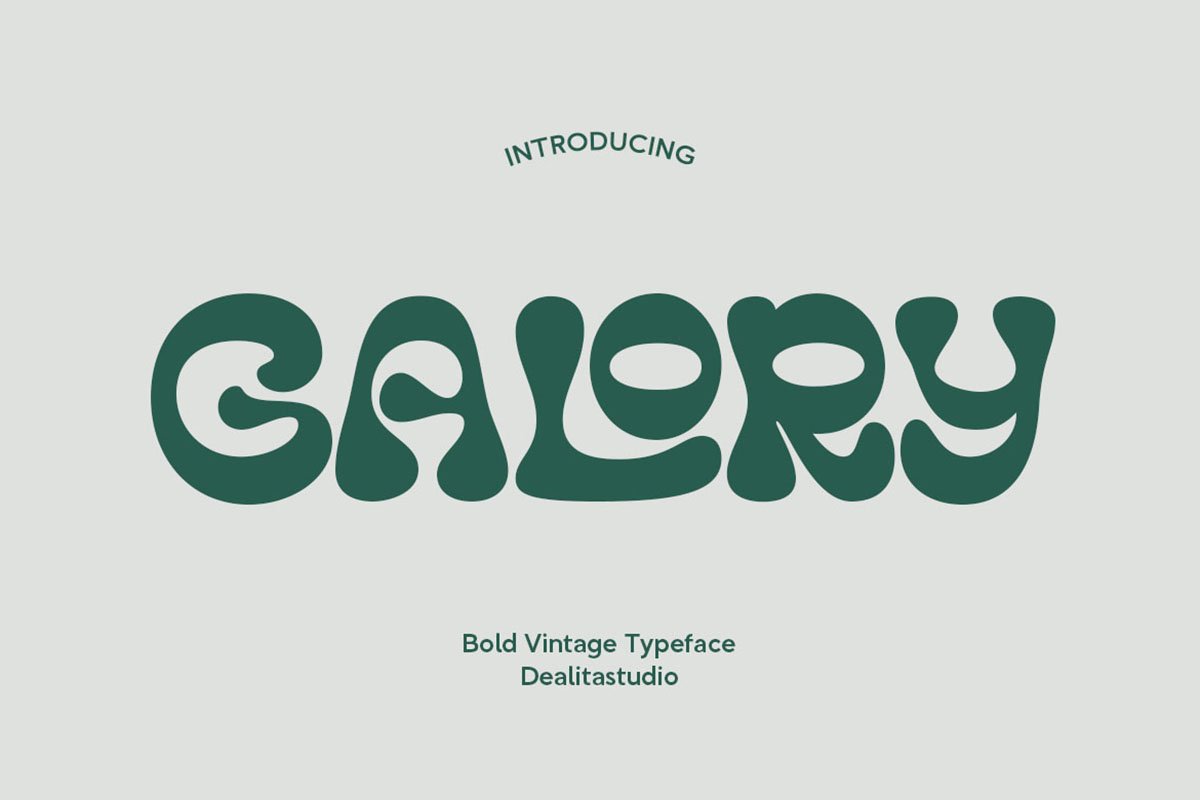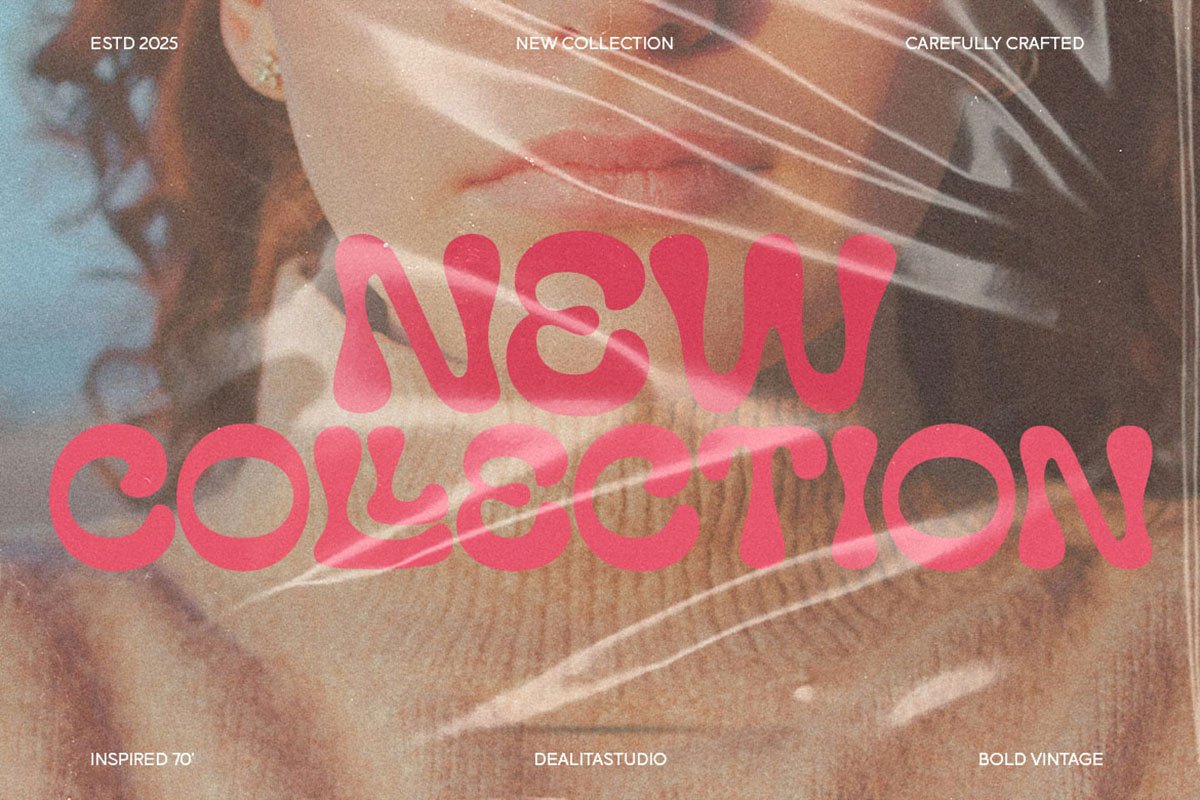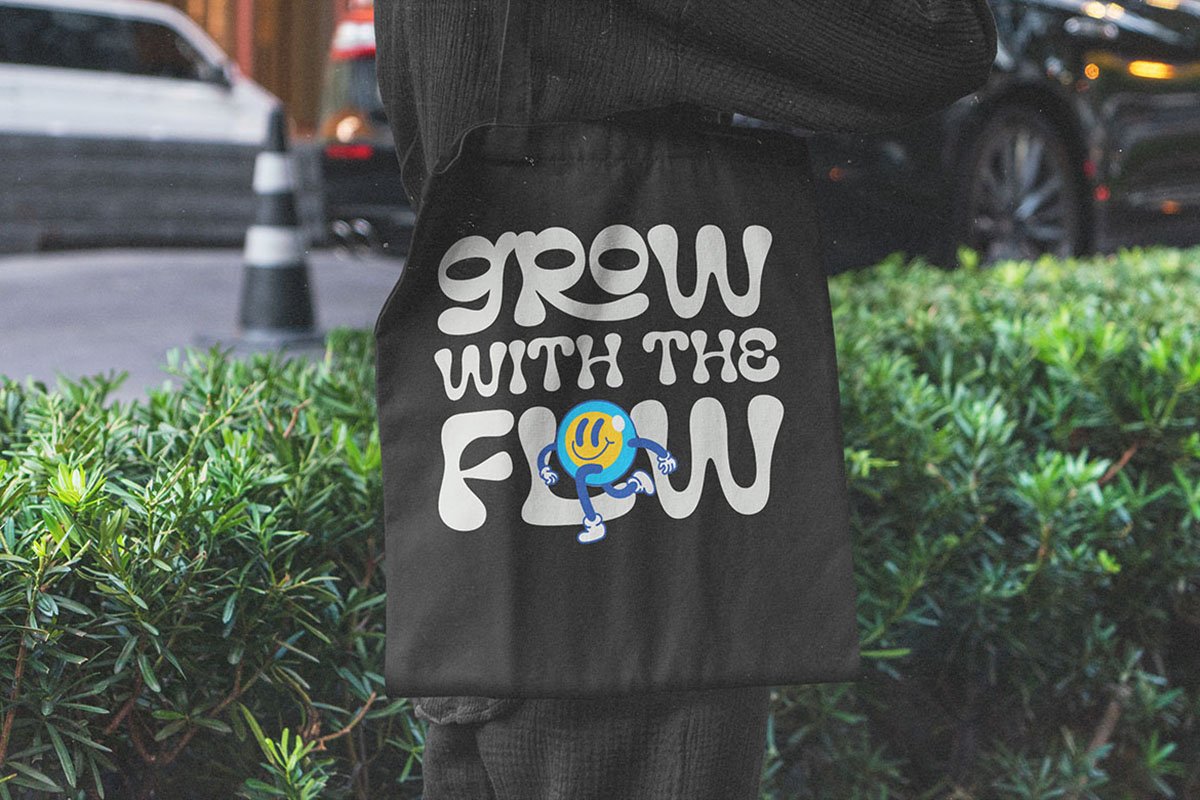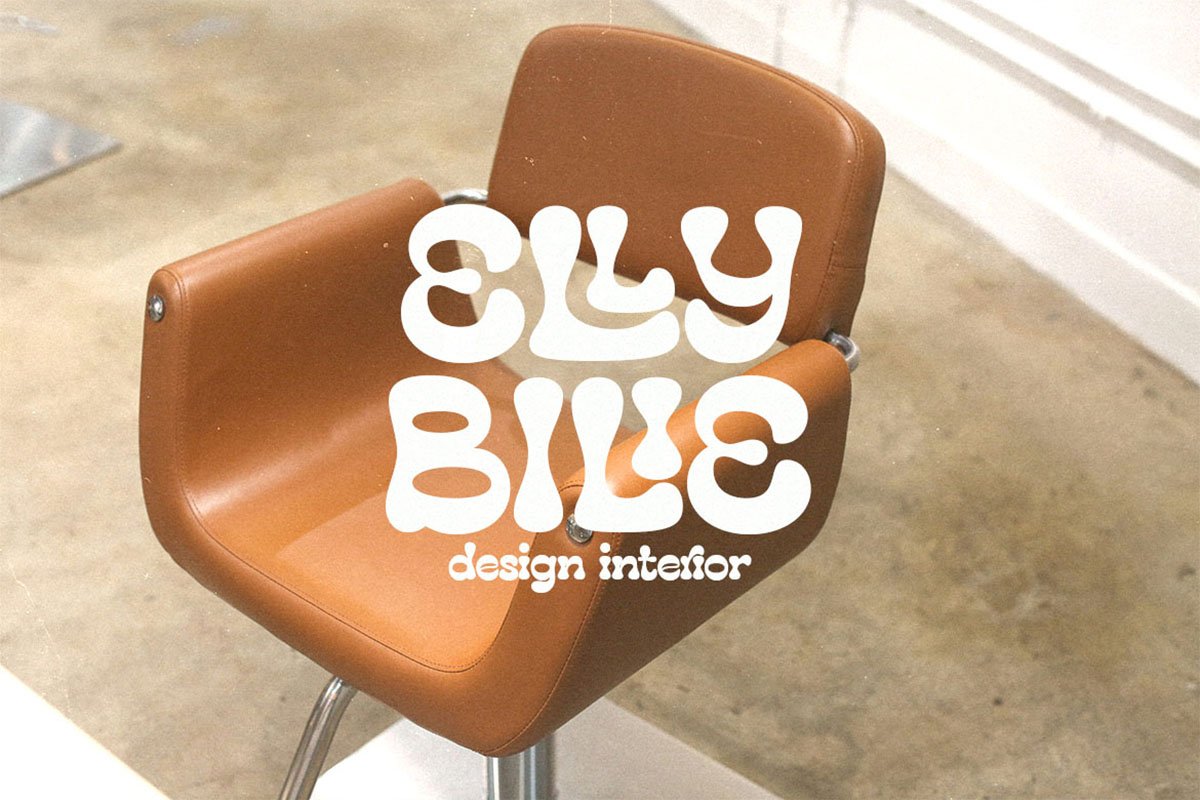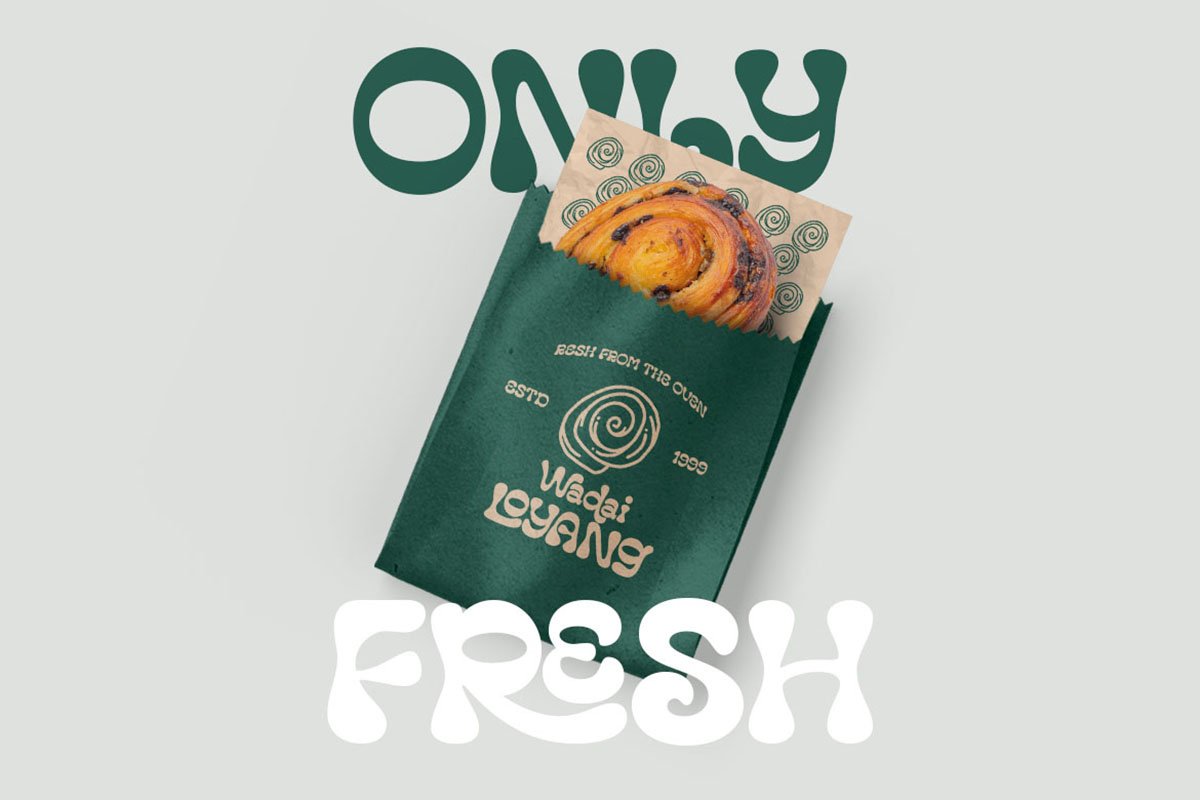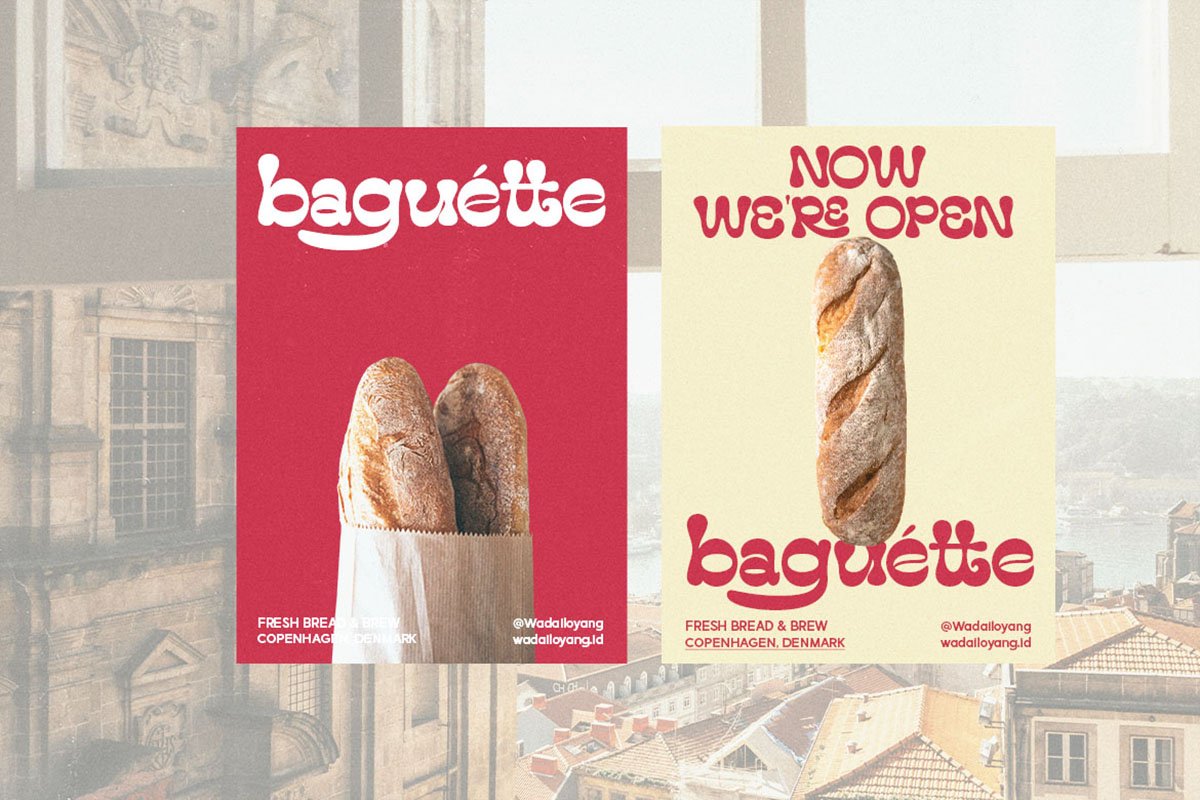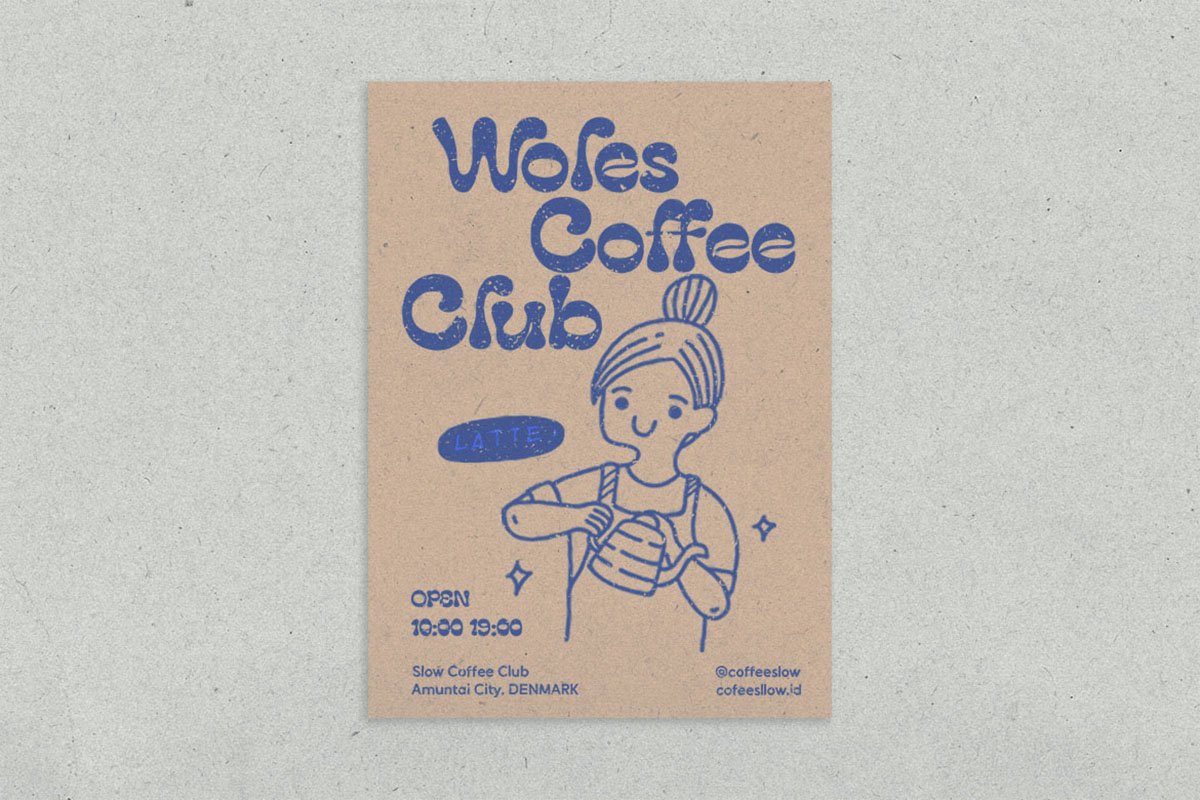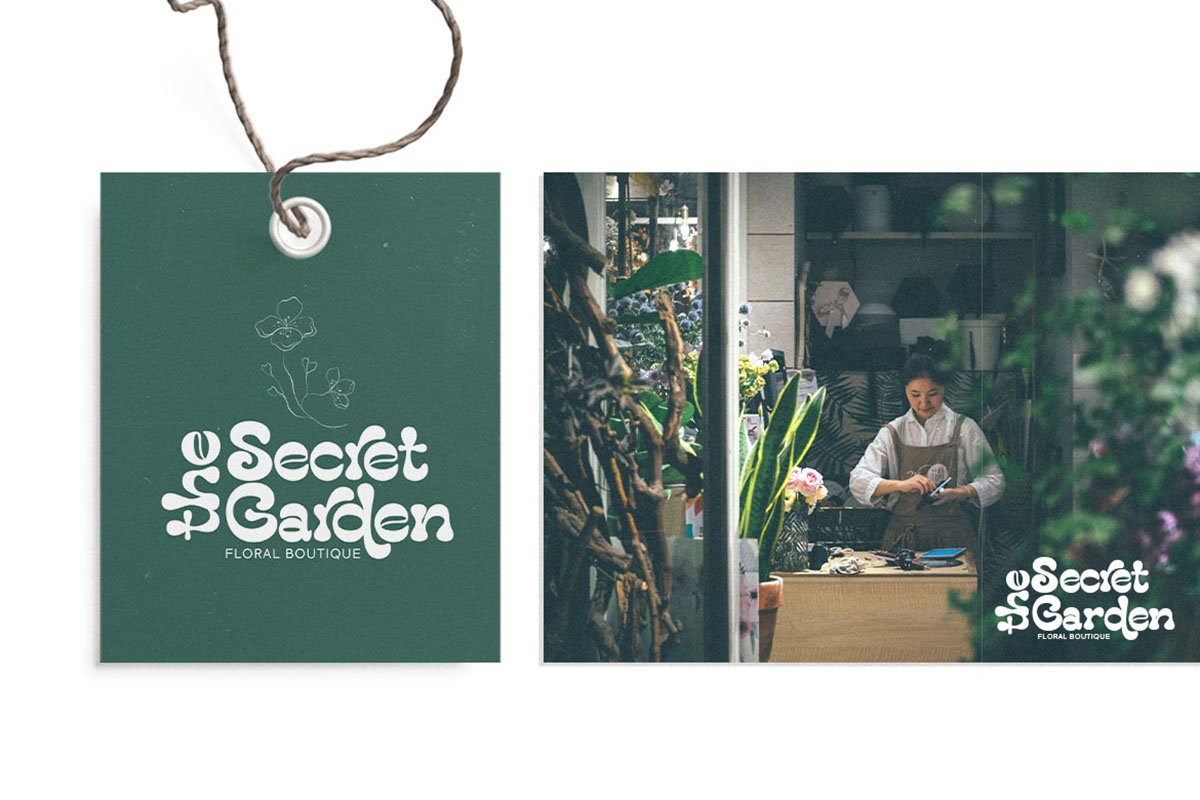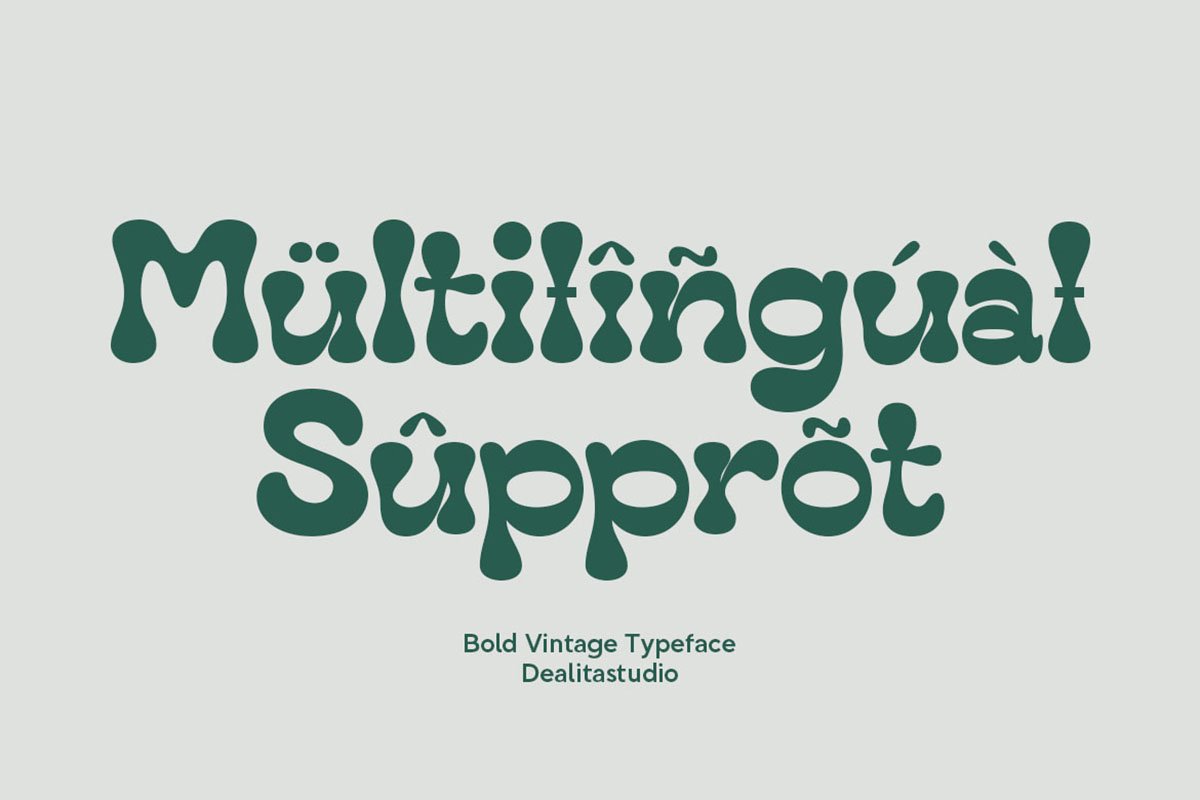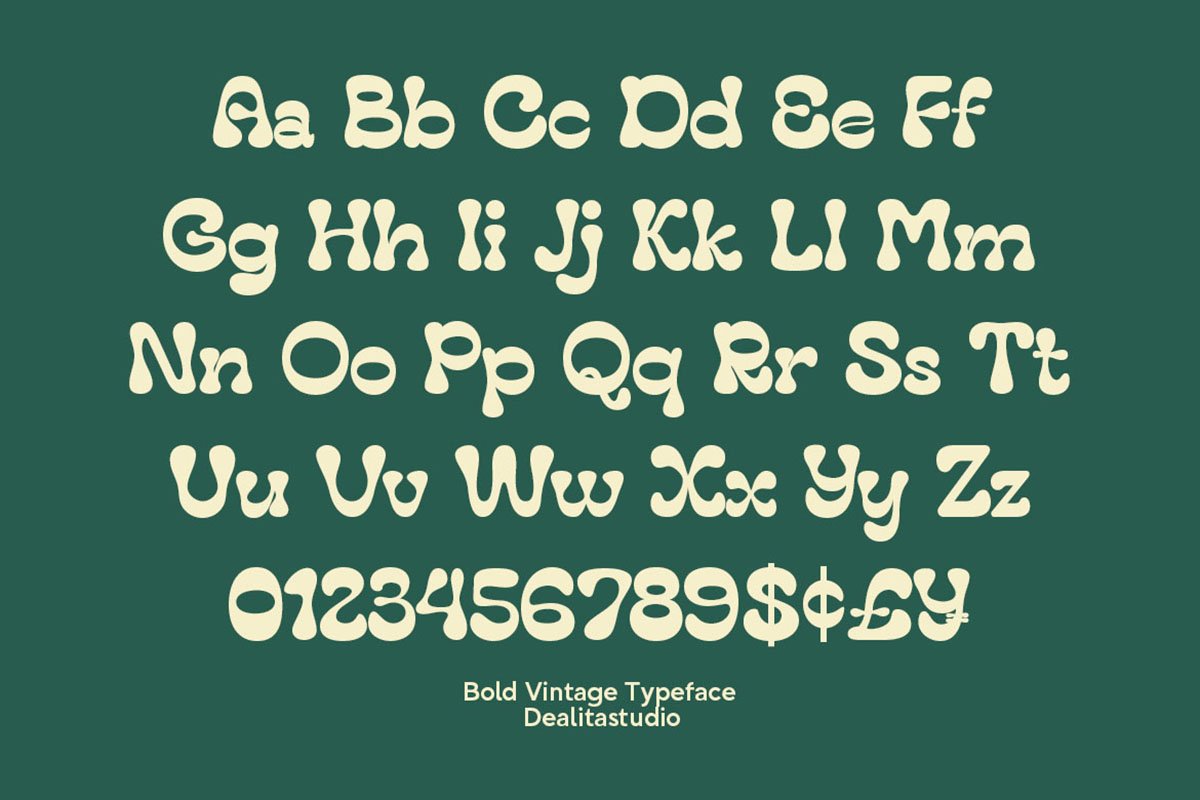
Galory is a bold, high-impact display font engineered with a striking reverse contrast structure. Capturing the vibrant 70s funky energy with a modern edge, its thick terminals and tapered flowing curves are designed for fearless branding, psychedelic posters, and vintage-inspired packaging.
GALORY